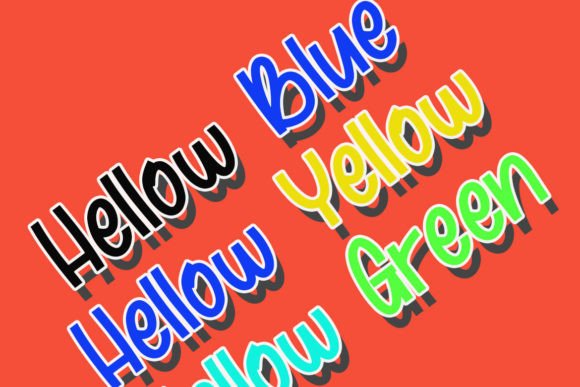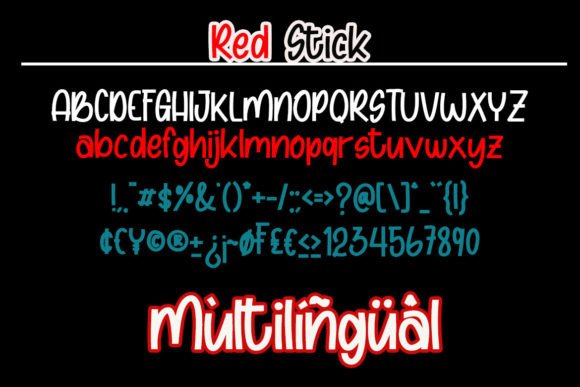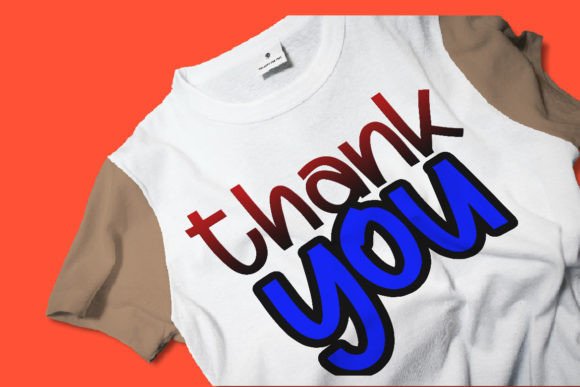
Introduction to Red Stick Font
Have you ever stared at a blank canvas, eager to bring your creative project to life, but struggled to find the perfect design element to get you started? That’s where the magic of high-quality design resources comes in. For designers like you, discovering a font that perfectly captures the essence of your vision can be a game-changer. And that’s exactly what the Red Stick Font is – a sweet and playful display font that’s sure to elevate any creation.
With its natural and unique style, the Red Stick Font is an incredible asset to any designer’s library. Whether you’re working on a free download project or a commercial design, this font has the potential to take your work to the next level. Plus, with its transparent background, you can easily customize it to fit your design needs.
Key Features of Red Stick Font
- Unique, hand-drawn design with a transparent background
- Supports a wide range of languages, including Latin, Cyrillic, and Greek
- Size: Includes 6 font styles, from thin to bold, to cater to various design needs
Honest Review: Red Stick Font
I recently stumbled upon the Red Stick Font, a free download that caught my attention due to its unique style and versatility. As a designer, I’m always on the lookout for high-quality resources that can elevate my creative projects.
What works well for the Red Stick Font is its wide range of applications – from digital to print, it’s a great addition to any design resource collection. The font is also available with a transparent background, making it easy to integrate into any design project.
Here are some of the key features that I appreciated:
- ✨ Unique and stylish design
- ✨ Wide range of applications (digital and print)
However, I did encounter some limitations with the Red Stick Font:
- ⚠️ Limited font sizes and weights available
- ⚠️ May not be suitable for complex text-based designs
Overall, I’m impressed with the Red Stick Font’s potential to add a unique touch to creative projects. While it may have some limitations, I think it’s a great resource for designers looking for a free and high-quality font download.
How to Use Red Stick Font
The Red Stick Font is a high-quality design resource that offers a unique and creative way to express your ideas. This free download is perfect for any project that requires a touch of elegance and sophistication.
Tips for Getting the Most Out of Red Stick Font
To get the most out of Red Stick Font, use it in conjunction with other design elements, such as graphics and images. This will help you create a cohesive and visually appealing design.
Common Use Cases for Red Stick Font
Red Stick Font is perfect for a variety of projects, including:
- Documents
Alternatives to Red Stick Font
How it compares to Red Stick Font: Montserrat Font has a more geometric and modern feel compared to Red Stick Font’s distressed look. While Red Stick Font is ideal for vintage or retro-themed designs, Montserrat Font excels in contemporary and urban design projects.